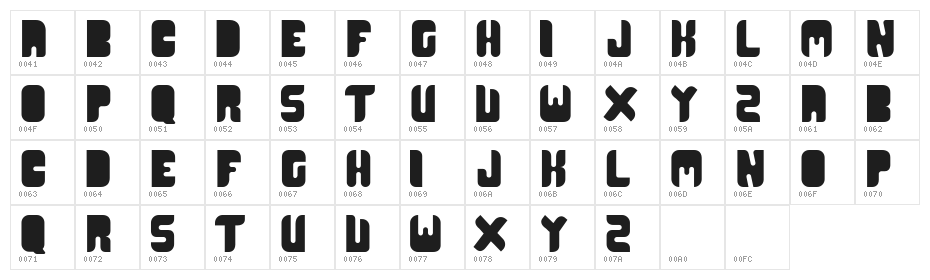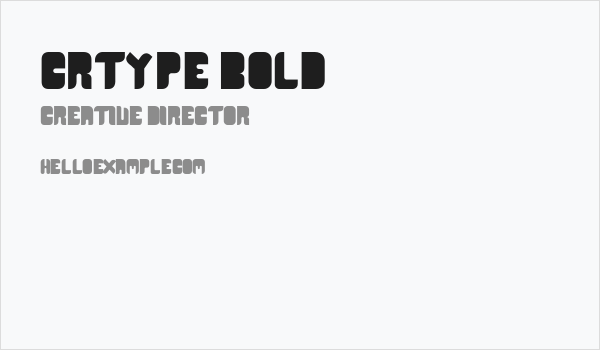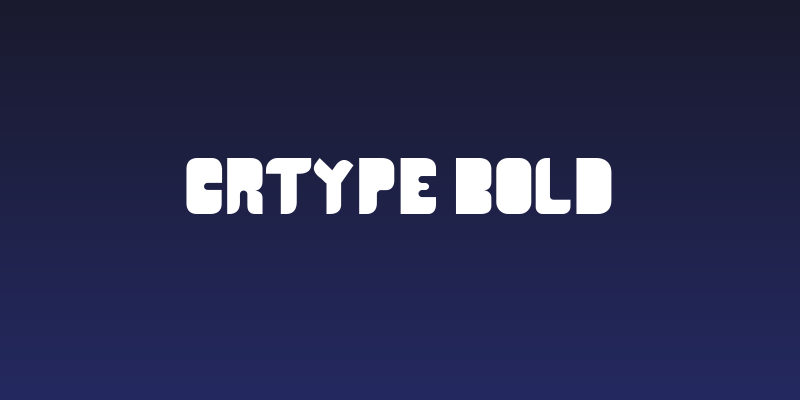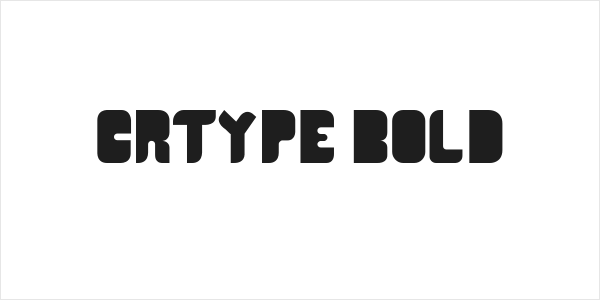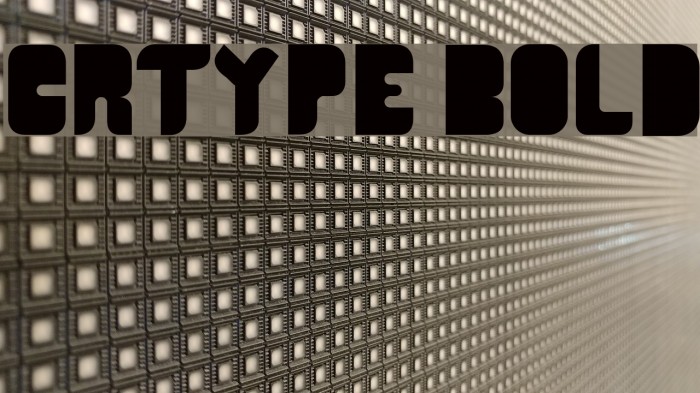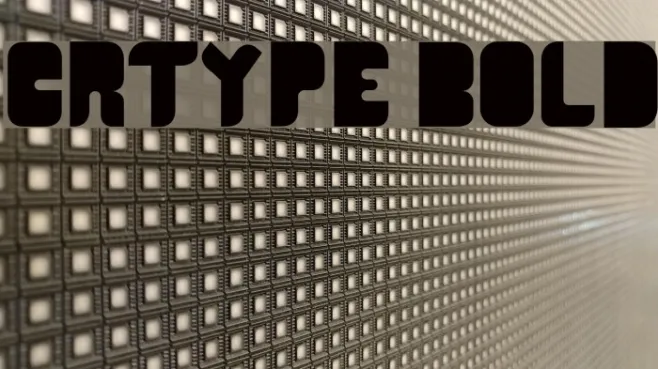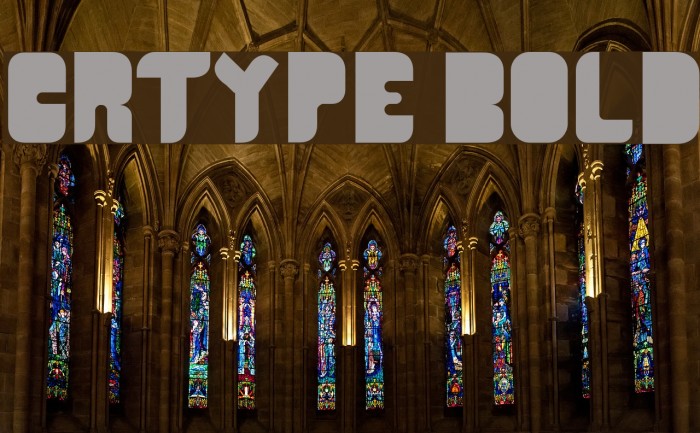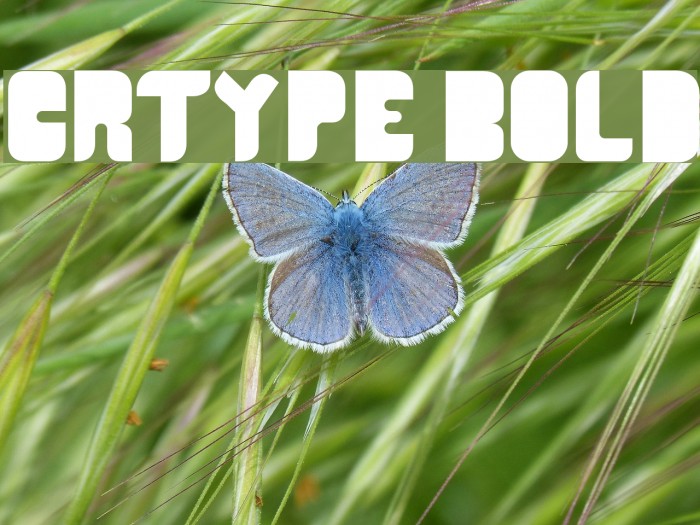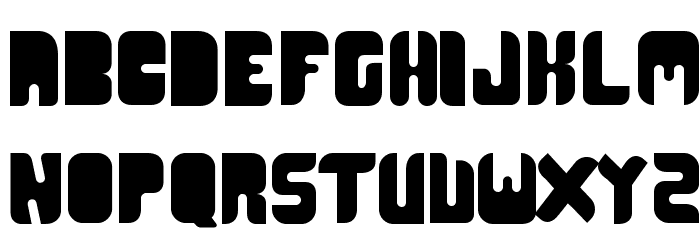
CR21TYPE Bold Font
CR21TYPE Bold Description
This bold, decorative font features a unique, blocky style with rounded edges, giving it a playful yet robust appearance. The characters are uniformly thick, creating a strong visual impact. The uppercase letters are particularly striking, with a consistent height and width that enhances readability. The font's design is reminiscent of retro or vintage styles, making it suitable for projects that require a bold statement. Its geometric shapes and solid structure make it ideal for attention-grabbing headlines or logos. The font's distinctiveness lies in its ability to convey both strength and approachability, making it versatile for various design applications.
| Proposed Projects | Ideal for posters, logos, branding, and any design needing a bold, retro touch. |